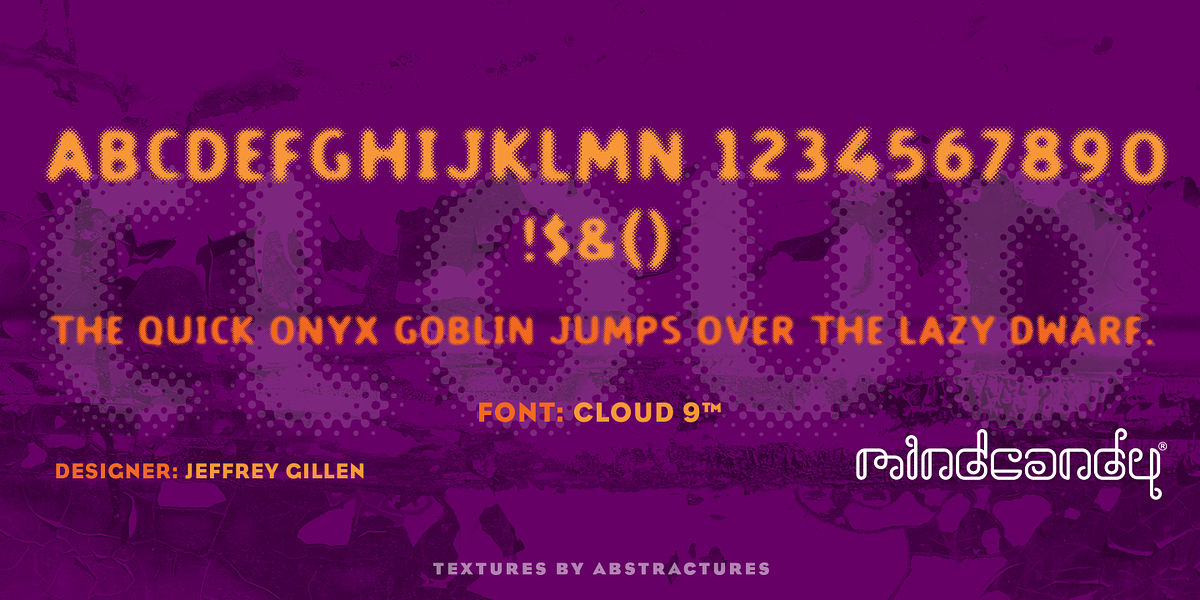
Cloud9™
This font is a modern geometric sans serif typeface designed by Jeff Gillen. It's characterized by its clean lines and sharp angles, giving it a fresh and contemporary look. Suitable for applications like headlines, branding, and web design.